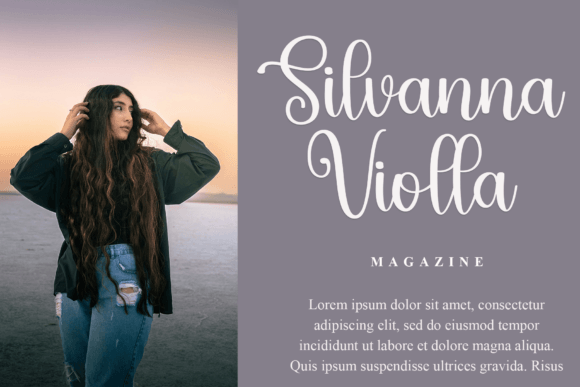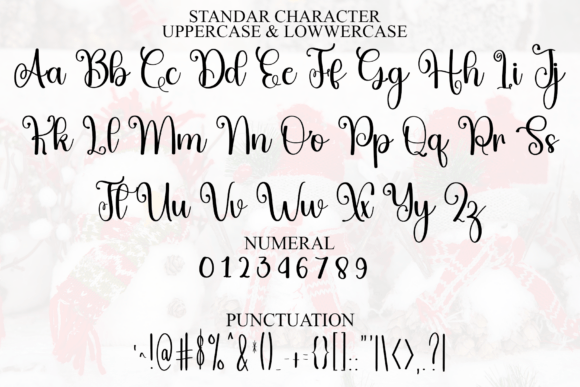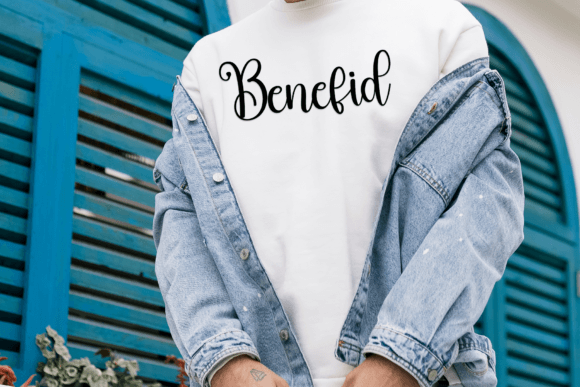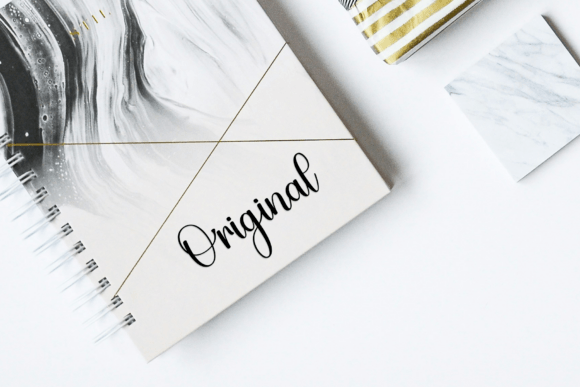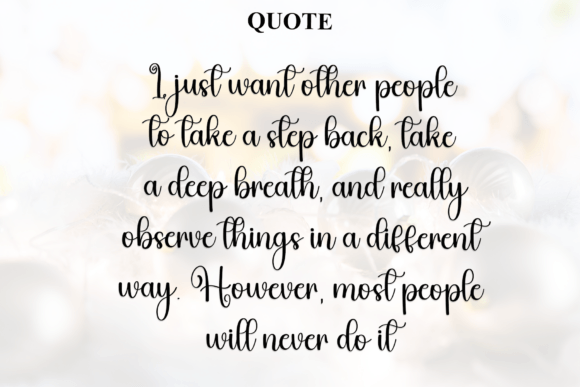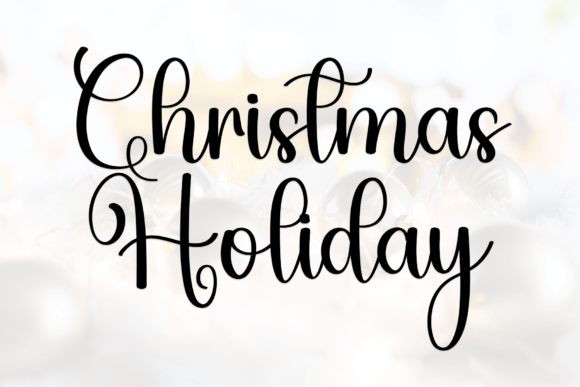
Christmas Vacation Font: The Perfect Holiday Companion for Designers
The holiday season is upon us, and with it comes the need for festive and fun designs that capture the warmth and spirit of Christmas. If you’re a designer or crafter looking for the perfect font to add a touch of whimsy to your projects, look no further than the Christmas Vacation font. This casual script font is designed to exude warmth and friendliness, making it perfect for personal projects, invitations, and social media graphics.
The Characteristics of Christmas Vacation Font
Christmas Vacation font is a hand-drawn script font that boasts rounded, playful strokes that give it a relaxed and approachable feel. The font’s charming aesthetic adds a delightful, whimsical touch to any design, making it perfect for projects that require a personal and festive touch. The font’s casual and friendly demeanor makes it an excellent choice for designers and crafters who want to add a touch of warmth and personality to their work.
Uses for Christmas Vacation Font
Christmas Vacation font is incredibly versatile and can be used for a wide range of projects, including:
• Personal holiday projects, such as Christmas cards and invitations
• Holiday-themed crafts, such as scrapbooking and DIY decorations
• Commercial projects, such as holiday promotions and advertisements
Why Designers and Crafters Love Christmas Vacation Font
Designers and crafters love Christmas Vacation font for its unique and charming aesthetic. The font’s hand-drawn design gives it a personal and whimsical touch that is hard to find in other fonts. Additionally, the font’s rounded and playful strokes make it easy to read and add a touch of warmth to any design.
Tips for Using Christmas Vacation Font
Here are a few tips for using Christmas Vacation font in your designs:
• Use it for headlines and titles to add a touch of whimsy and personality
• Pair it with other fonts to create a unique and eye-catching design
• Experiment with different colors and textures to add depth and interest to your design
• Use it for body text to add a personal and friendly touch to your design
How to Pair Christmas Vacation Font with Other Fonts
Pairing Christmas Vacation font with other fonts can create a unique and eye-catching design. Here are a few suggestions for fonts that pair well with Christmas Vacation:
• Serif fonts, such as Times New Roman or Garamond, for a classic and elegant look
• Sans-serif fonts, such as Arial or Helvetica, for a modern and clean look
• Script fonts, such as Pacifico or Great Vibes, for a whimsical and playful look
Font Name Christmas Vacation Font
Author K_IN Studio
Christmas Vacation font is a versatile and charming font that is perfect for designers and crafters looking to add a touch of warmth and personality to their holiday projects. Its rounded, playful strokes and hand-drawn aesthetic make it a unique and eye-catching addition to any design. Whether you’re creating personal holiday projects or commercial designs, Christmas Vacation font is sure to become your go-to font for the holiday season.
Get Creative with Christmas Vacation Font
So why wait? Get creative with Christmas Vacation font and add a touch of whimsy and personality to your holiday designs. With its versatility, charm, and hand-drawn aesthetic, Christmas Vacation font is sure to become a favorite among designers and crafters. So go ahead, get creative, and make this holiday season one to remember!